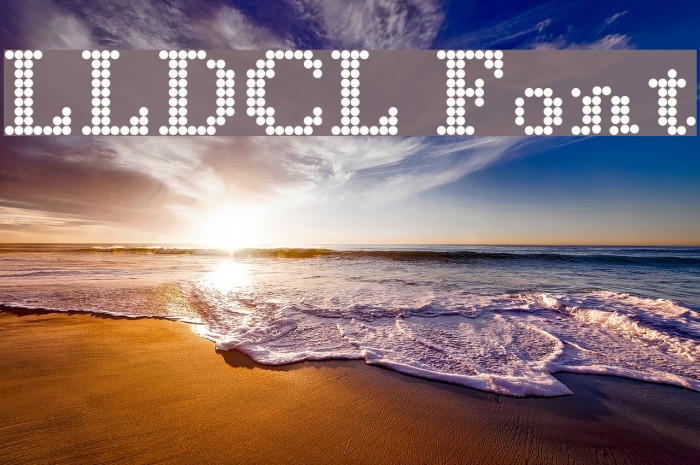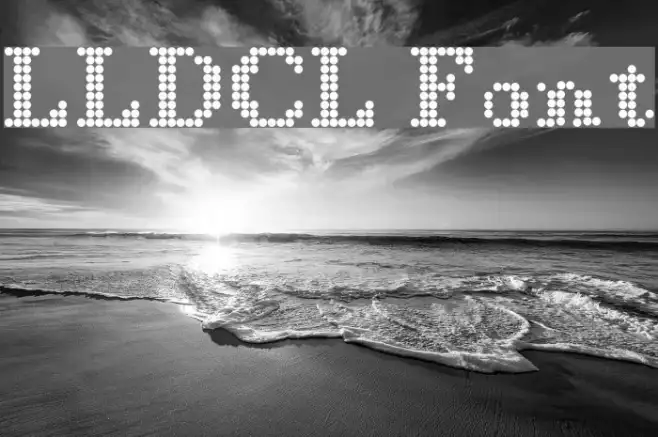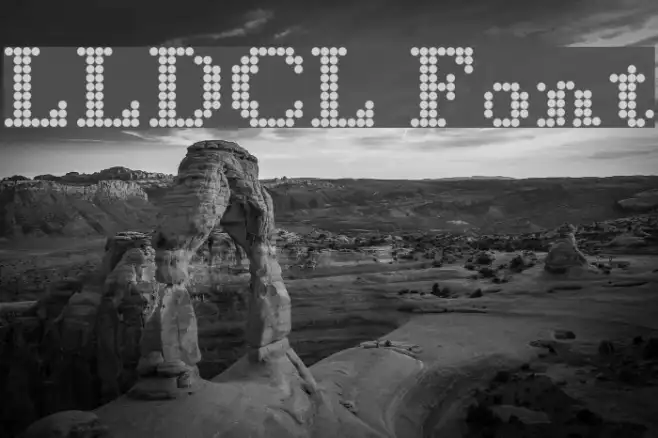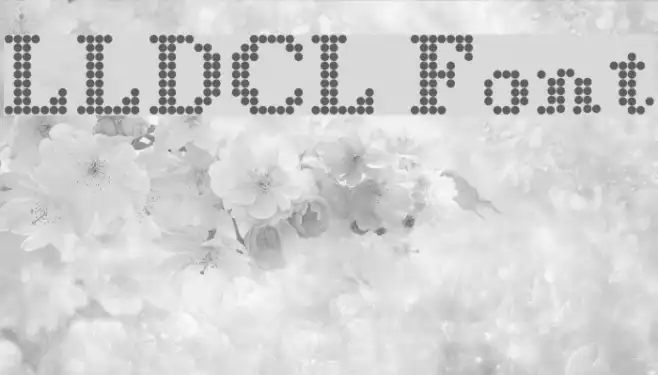
LLDCL Font
LLDCL Description
This font features a unique design composed entirely of small, evenly spaced dots forming each character. The style is playful and eye-catching, with a consistent dot pattern that creates a cohesive look across all letters and numbers. The uppercase and lowercase letters maintain a uniform size and spacing, ensuring readability while adding a decorative flair. The numbers and special characters follow the same dotted pattern, making them visually consistent with the alphabet. This font's distinct appearance makes it ideal for creative and artistic projects where a bold statement is desired.
| Proposed Projects | Ideal for posters, invitations, children's books, and creative branding projects. |